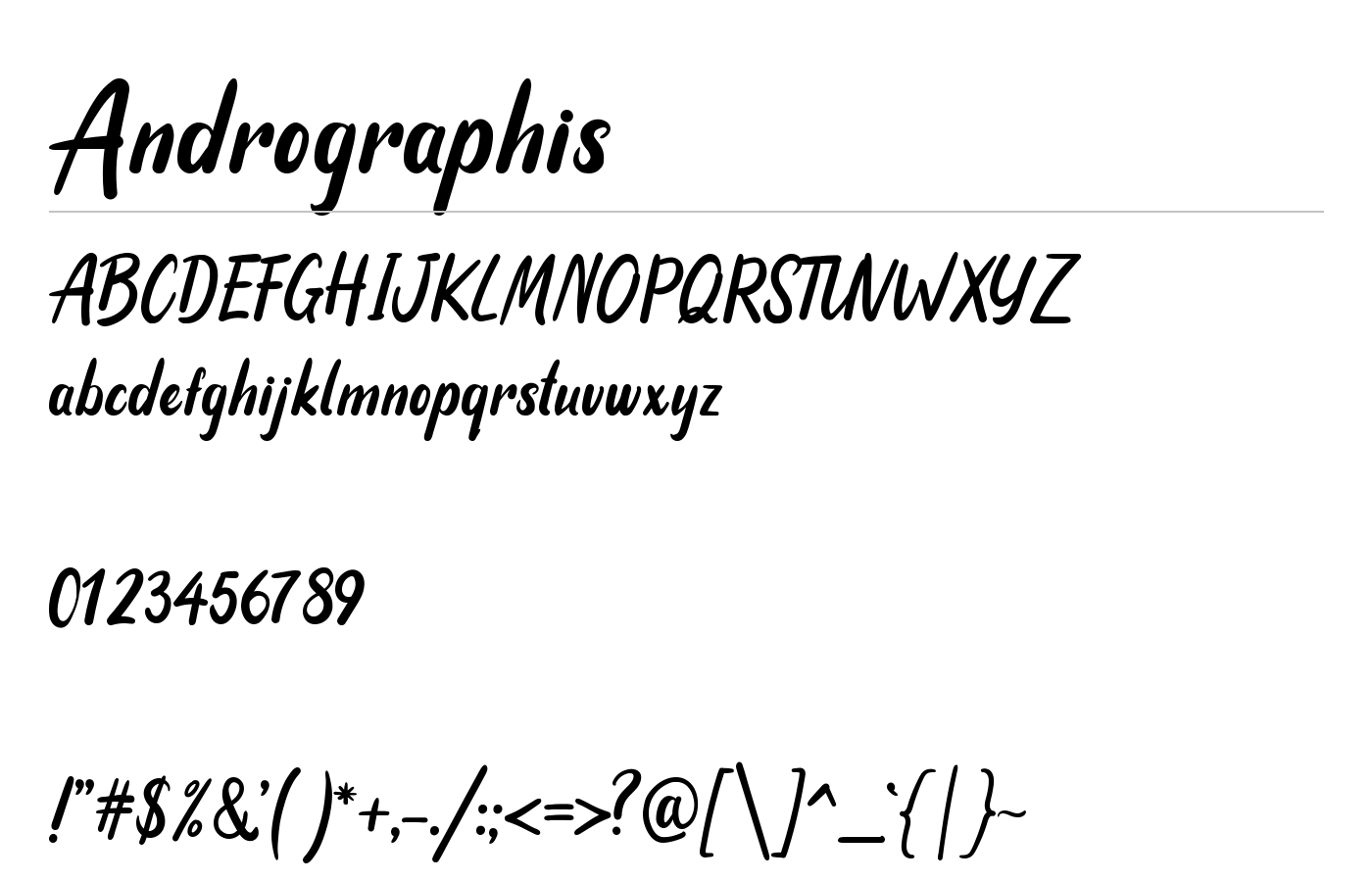
Andrographis is a lively, casual script font with a smooth, handwritten style that brings warmth and personality to any design. Its medium weight and slightly condensed letterforms create an approachable yet energetic feel, making it perfect for branding, invitations, and friendly headlines where a natural, personal touch is desired. This font works well for projects seeking a modern yet informal vibe that remains readable and engaging.
Andrographis Font